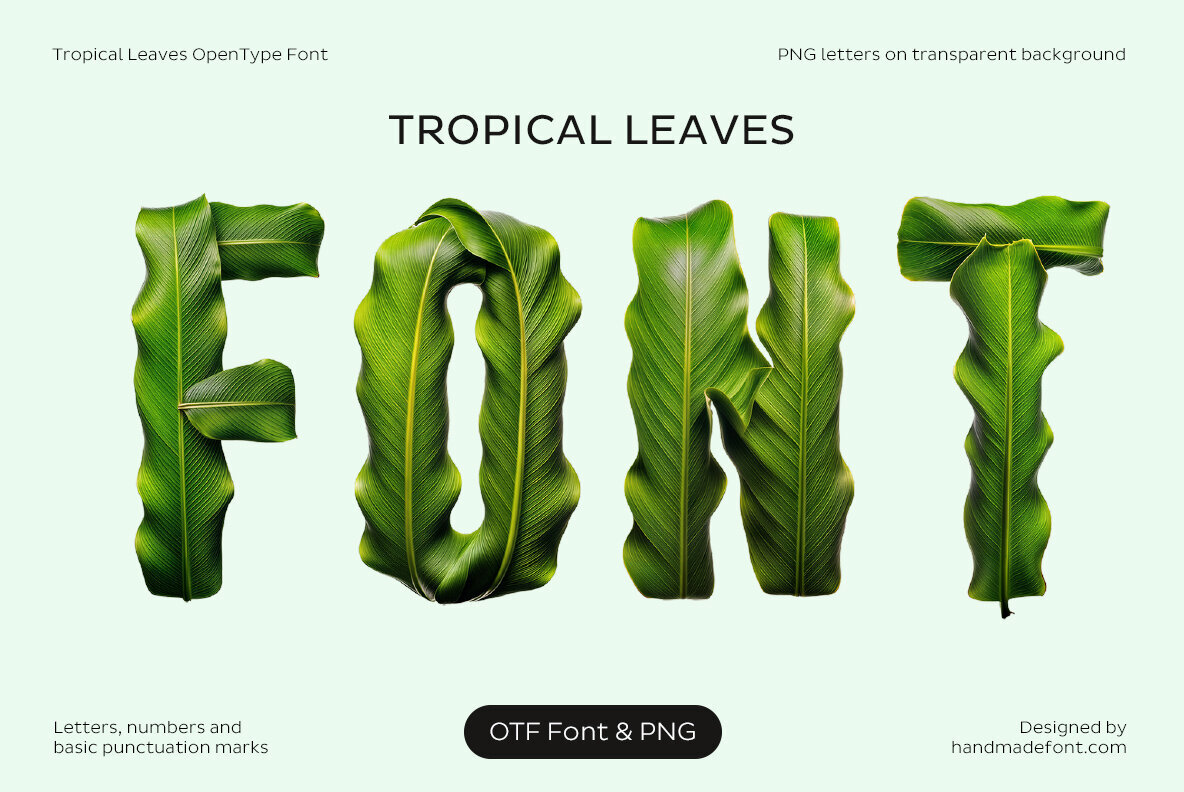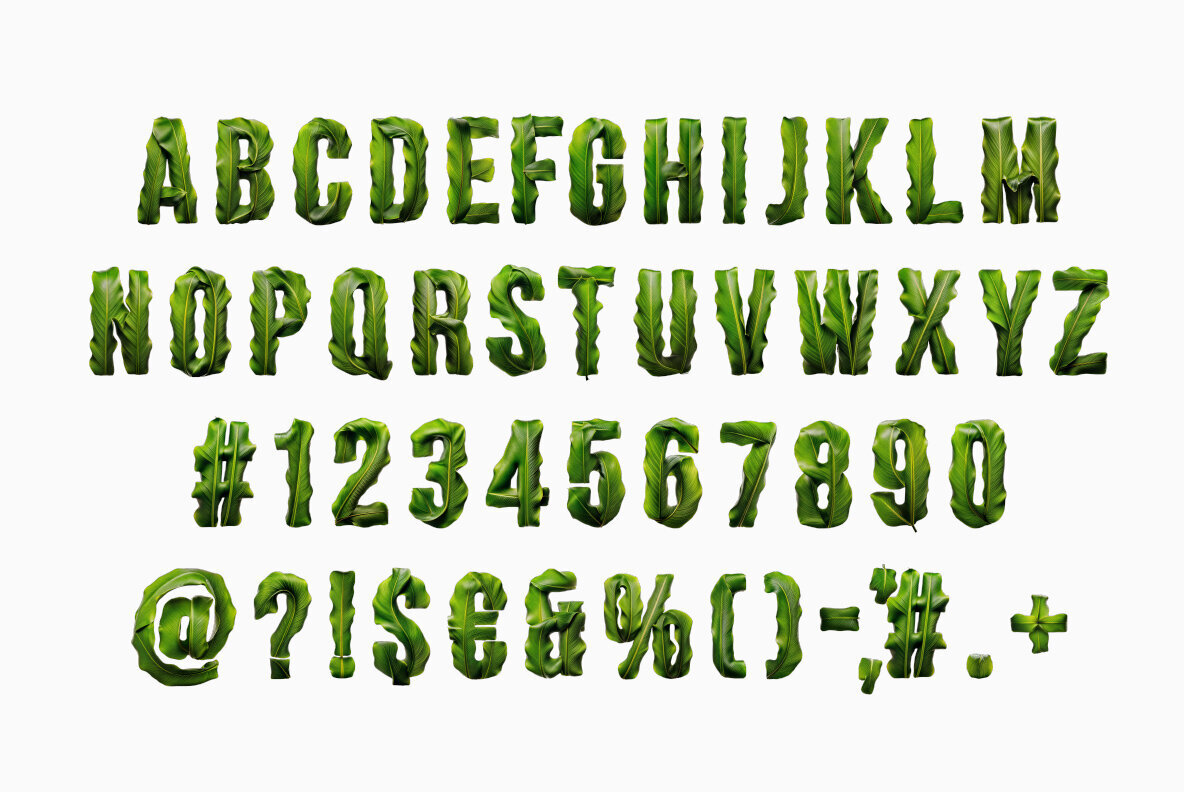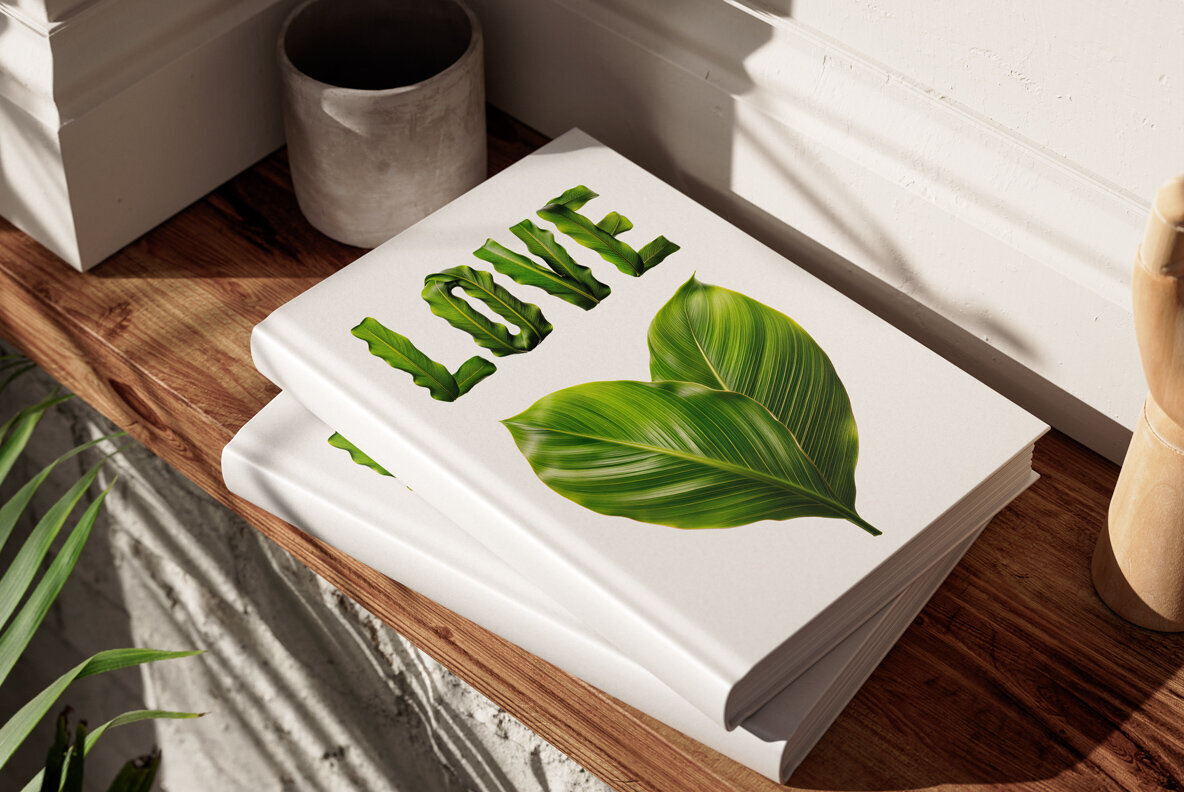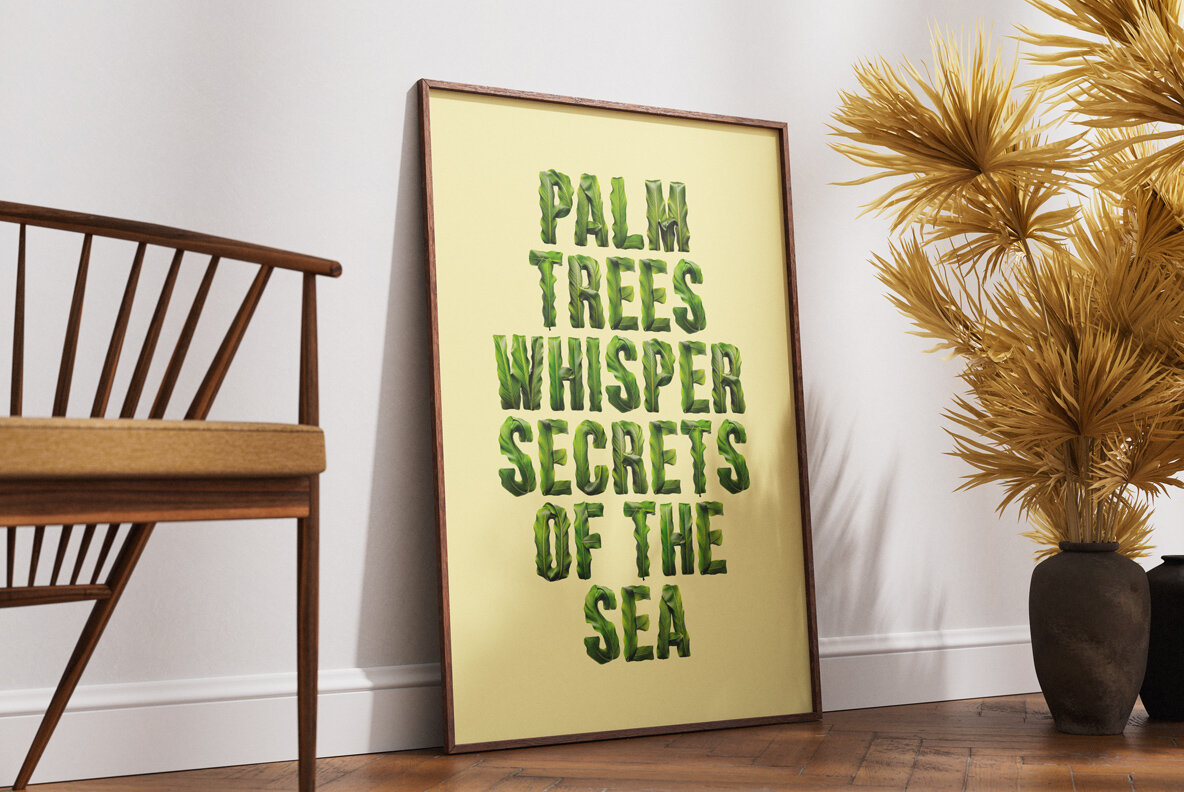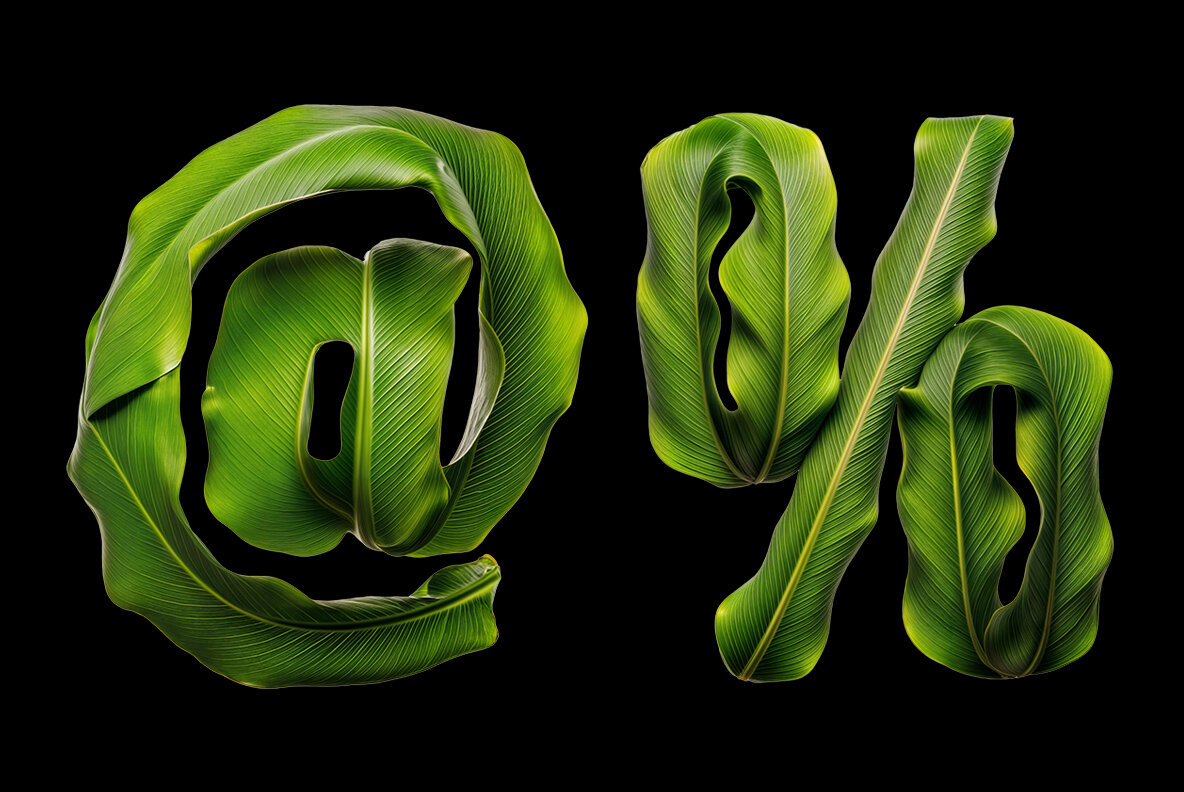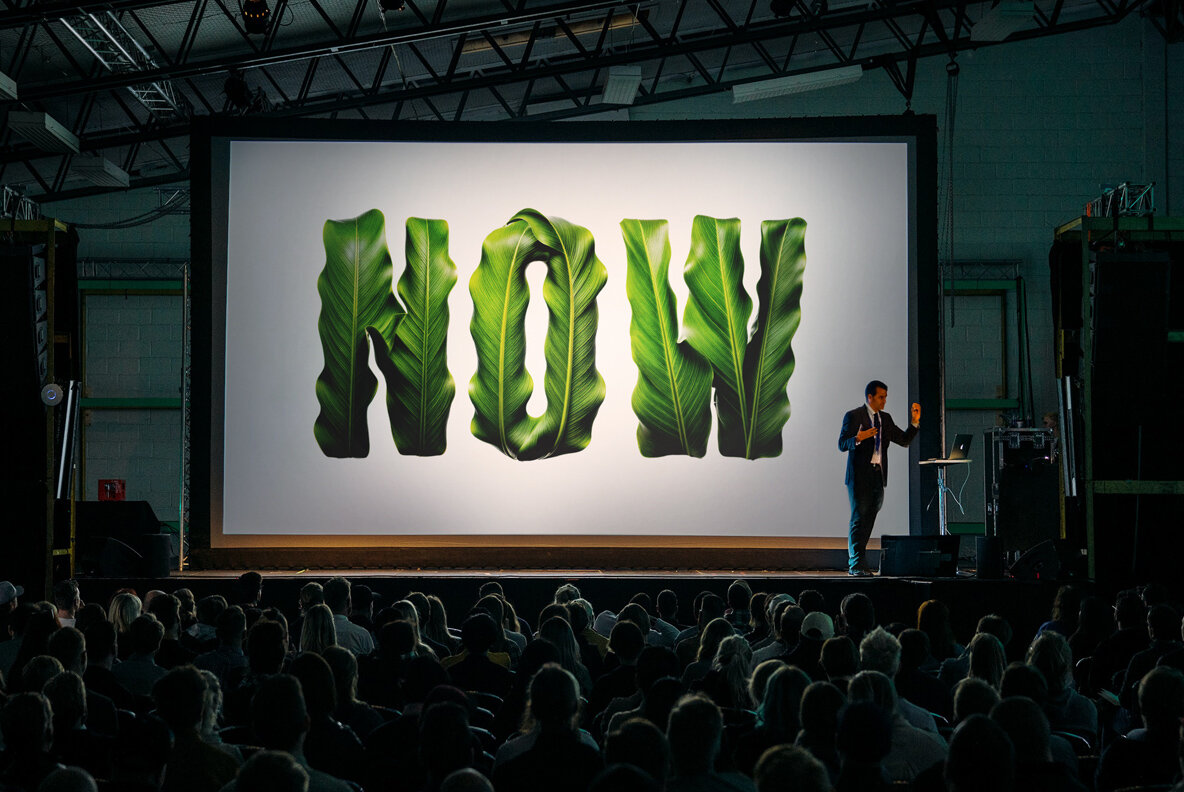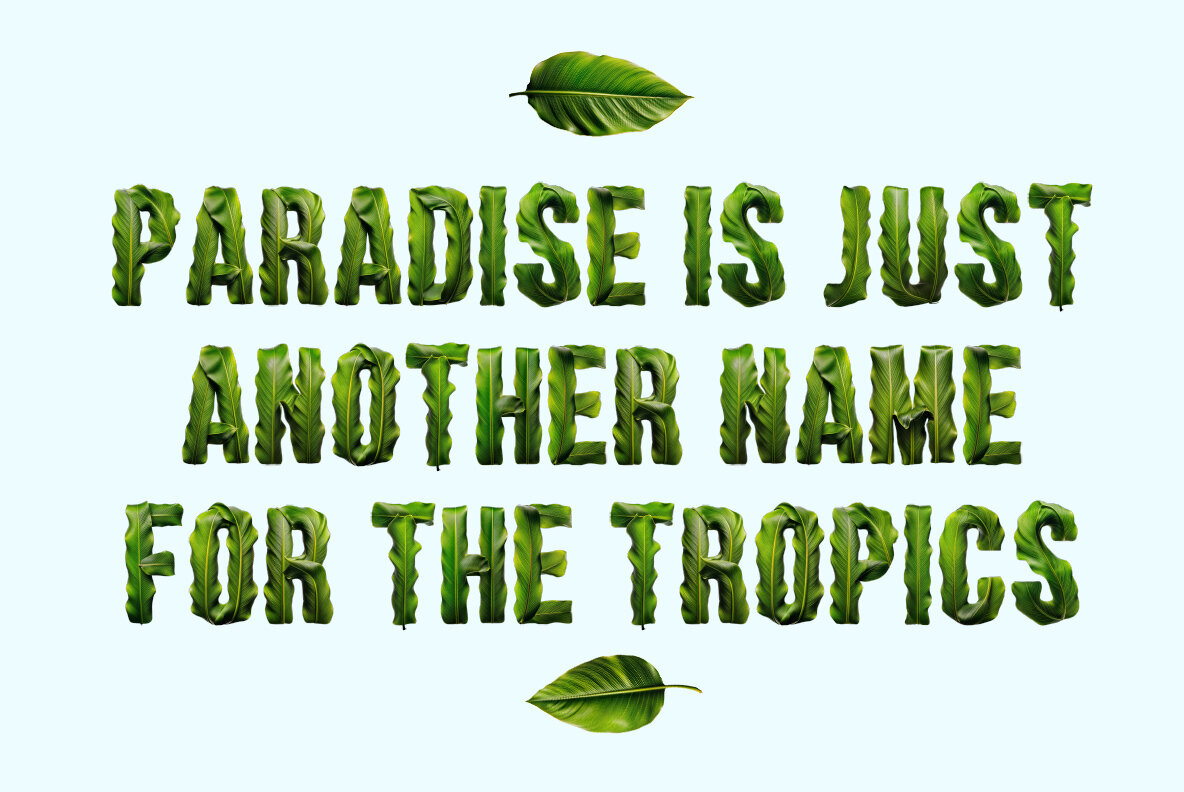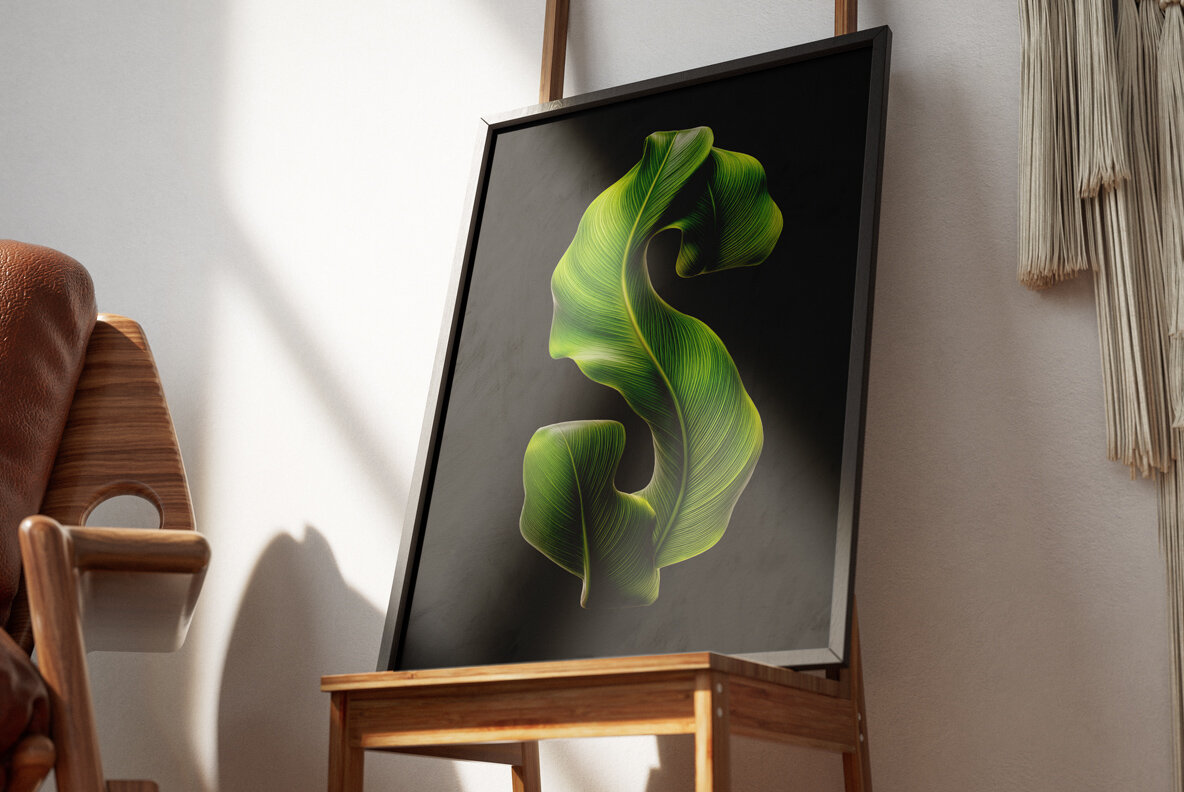
Tropical Leaves Font
Nature finds its bold voice with the Tropical Leaves font—where typography becomes a lush exploration of vibrant rainforest imagery. Crafted with the greenery of palm, banana, and monstera leaves, each letter forms an exotic botanical masterpiece that captures the essence of paradise. Whether designing an eco-chic brand, crafting tropical party invitations, or creating rainforest-inspired artwork, this font offers a fresh, organic twist to any project.
Explore the vivid world of typography with Tropical Leaves, where every design becomes a journey into the heart of the jungle.